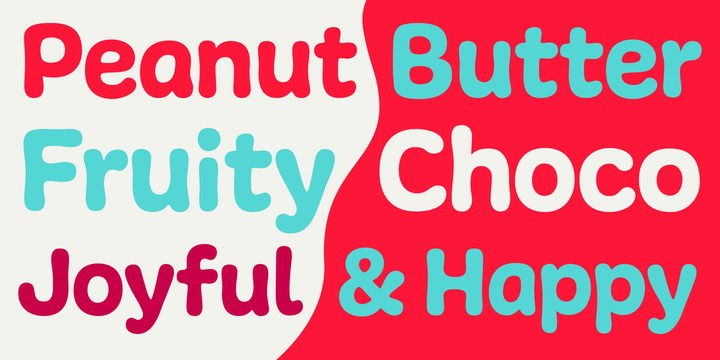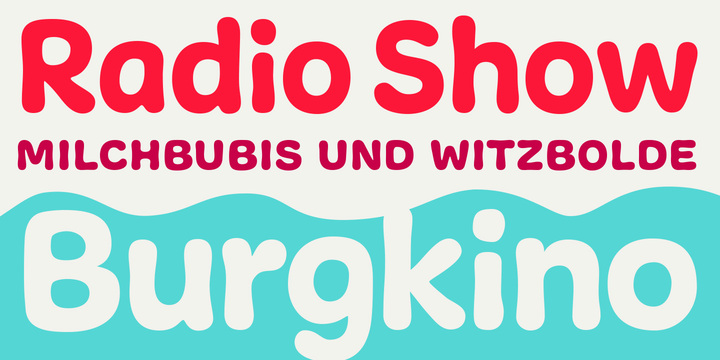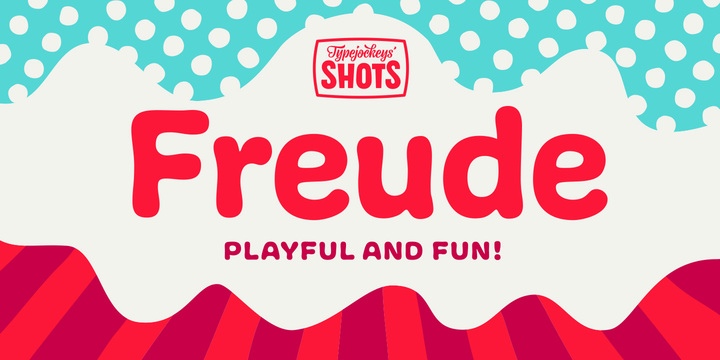
Freude Font
Freude was originally developed for the album artwork of the Austrian musician Tombeck. The word Freude means “joy” in German. Supplemented by the addition of lowercase letters and refined by various OpenType features, the Freude typeface is charmingly playful. Created for everything fun, its design is relaxed and amiable – perfect for mama’s boys, chocolate freaks and pranksters alike. Thanks to its balanced letterforms, Freude is equally entertaining in both large and small sizes.